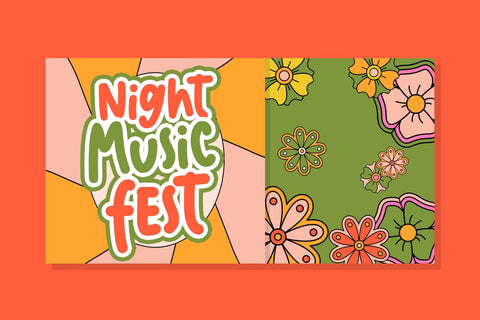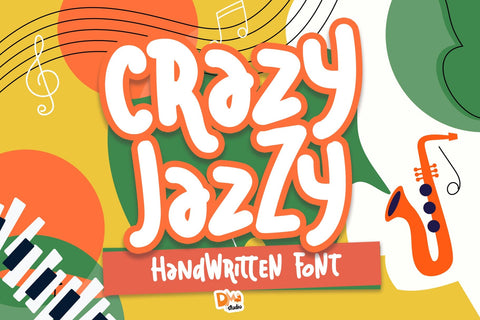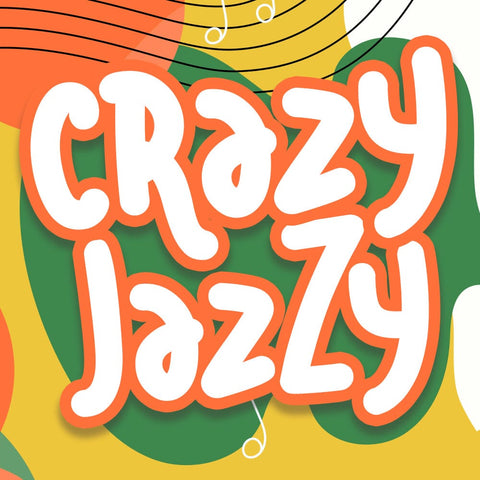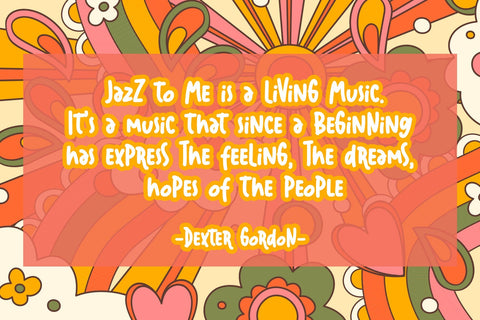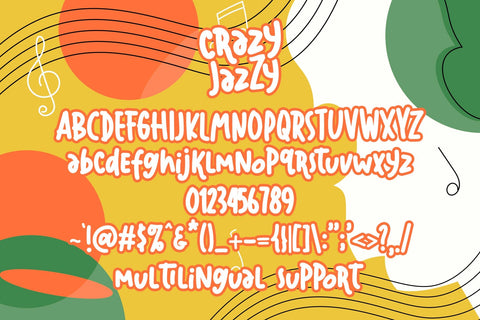
Crazy Jazzy Font
Crazy Jazzy Font is a lively and whimsical typeface designed to add a burst of energy and playfulness to your designs. With its eccentric letterforms and dynamic style, this font is perfect for creative projects, branding, merchandise, and anything that needs a touch of fun and craziness.
- Playful and Eccentric Style: The Crazy Jazzy Font exudes a sense of playfulness and eccentricity. Its unique letterforms and dynamic design create a lively and unconventional look, making it ideal for projects that demand a bold and energetic presence.
- Uppercase and Lowercase Letters: The font includes both uppercase and lowercase letters, providing flexibility in creating visually appealing and balanced typography.
- Punctuation and Symbols: In addition to the alphabet, the font includes a comprehensive set of punctuation marks, numerals, and common symbols, ensuring versatility in your design projects.
- Versatile Application: This font is well-suited for a wide range of design projects, from posters and banners to social media graphics and merchandise, providing a lively and eye-catching aesthetic.
Create designs that stand out and radiate energy with the Crazy Jazzy Font. Let its dynamic and whimsical style bring a touch of craziness to your branding, merchandise, and creative projects. Unleash your creativity with this vibrant and unconventional typeface!